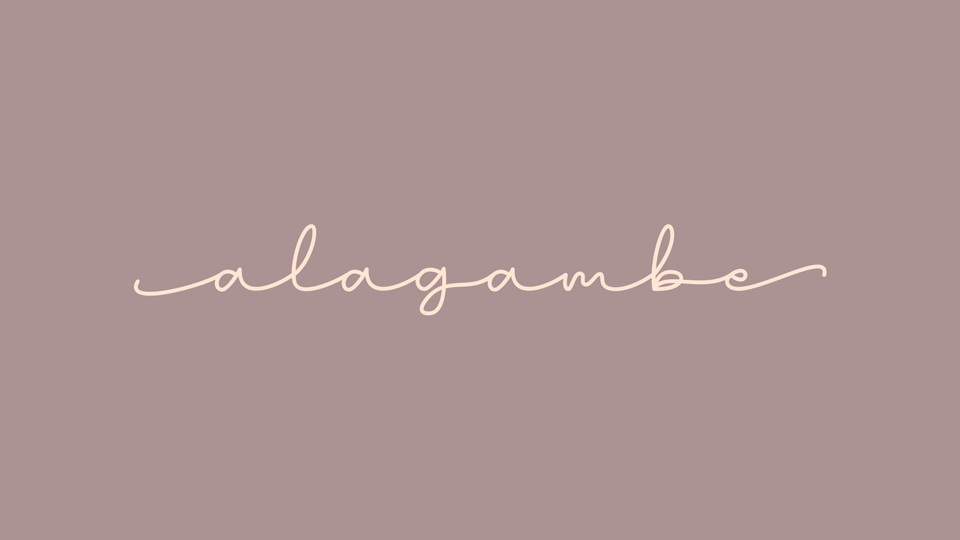
Feb 6, 2025Script & HandwrittenAlagambe Font Alagambe is a fresh monoline script font. It’s handmade and will give your design an authentic and luxurious feel. Font DetailsDesigned by: Zuzulgo StudioWebsiteLicense: Free for commercial use Download Alagambe FontFile size: 23.80 KBCreated: February 16, 2025Updated: February 16, 2025 Download Explore similar fonts Garitson Font Bob Raften Gones Font Marryland Font Carita Secret Font Bakula Font Chastel Reid Font # Casual# Handwriting# Monoline More fonts by Zuzulgo StudioBontang FontMallory Quon ScriptSenja Santuy FontKadung Tresno FontKhalila FontAndalan Eug FontCheerful Morning FontZidna Font